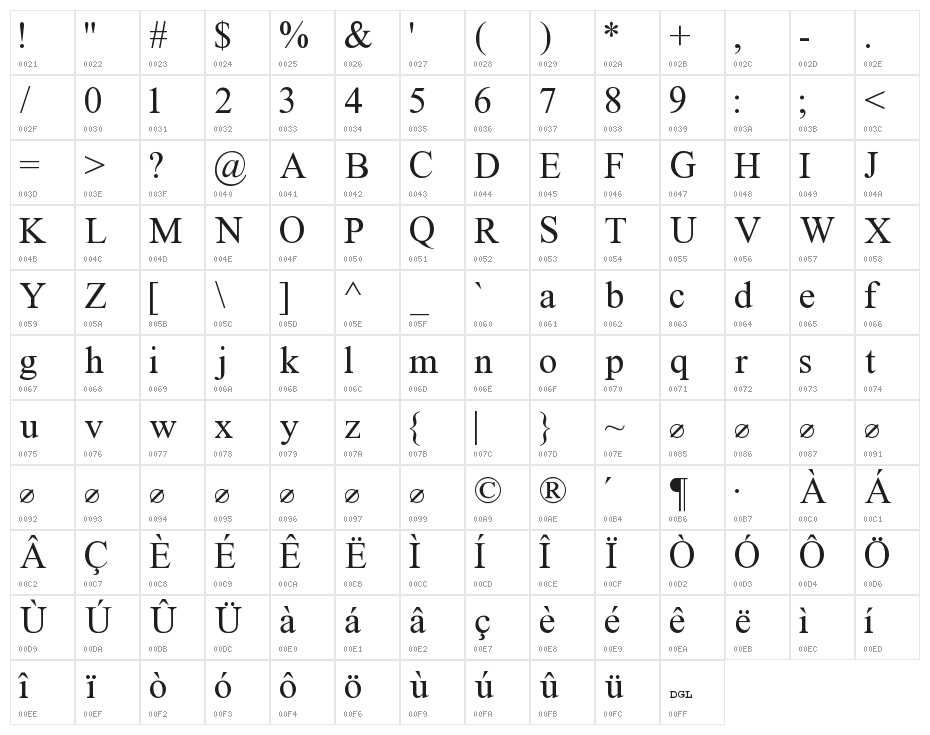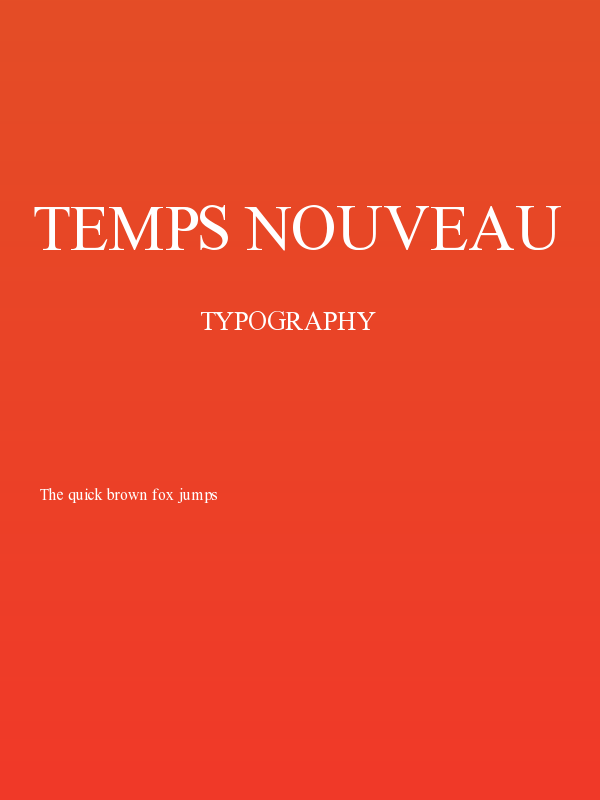
Temps Nouveau Font
Temps Nouveau Description
This font exudes a classic elegance with its serif style, featuring distinct and sharp serifs that enhance readability. The uppercase letters are bold and commanding, while the lowercase letters maintain a balanced and harmonious appearance. The numerals are clear and well-proportioned, making them suitable for both text and display purposes. Special characters are crafted with precision, ensuring consistency across all symbols. The overall design is timeless, making it versatile for various applications.
| Proposed Projects | Ideal for editorial design, book covers, formal invitations, and branding projects that require a touch of sophistication. |